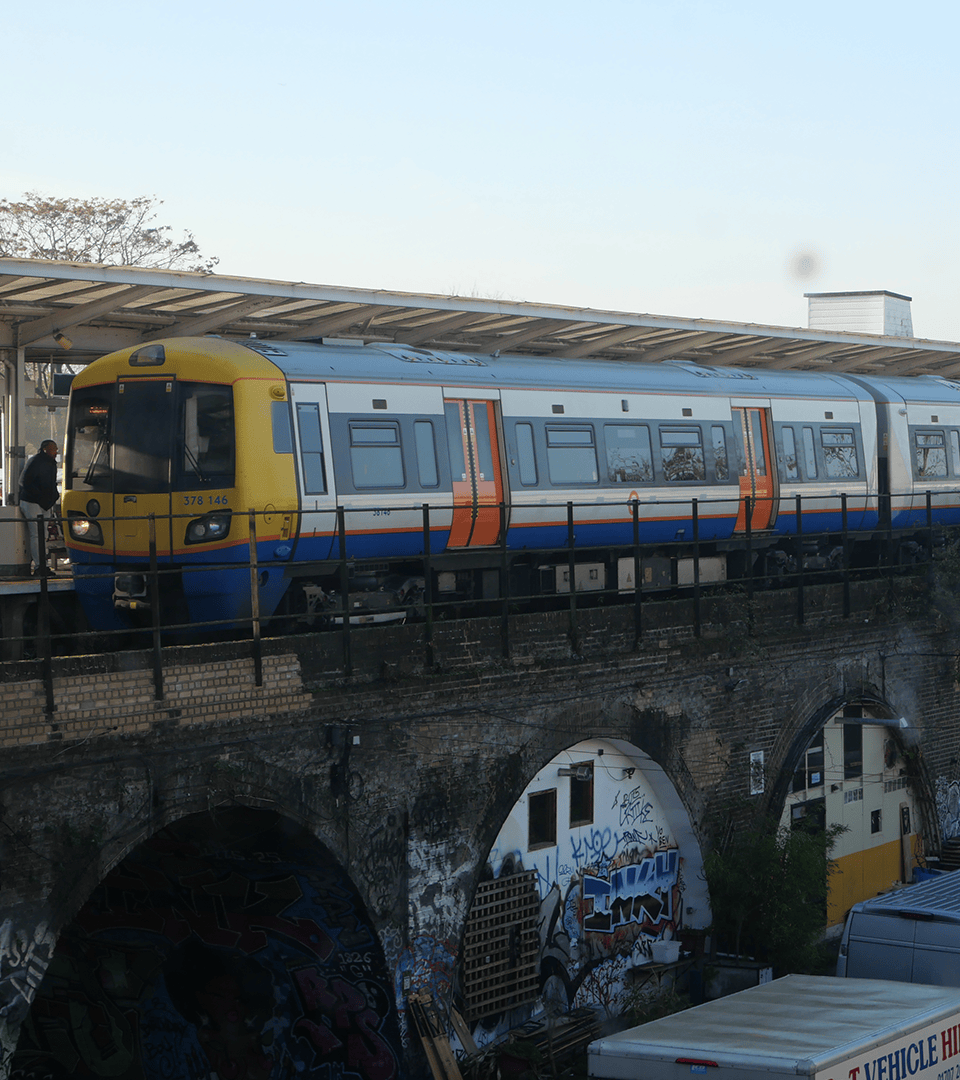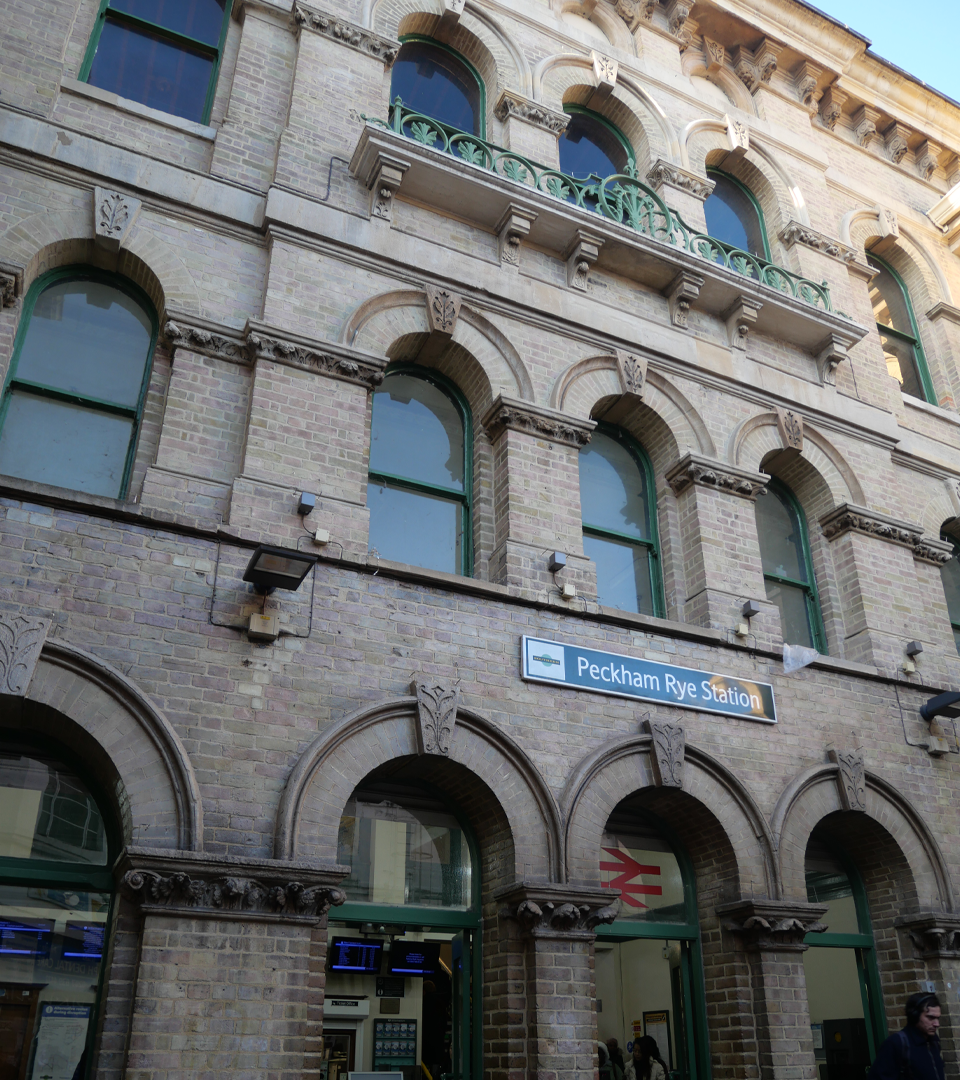
What immediately caught my attention at Peckham Rye Station was its physical form and the beauty in the architecture which is now hidden away by newer buildings. When I was designing my typeface I wanted to reflect the structure of the site to bring attention to the station instead of hiding it away. To do this I focused on one feature that I particularly liked which were the windows. The letters are rounded to reflect the arched shape of the windows and I included the keystone and the ridges as serifs which are seen in the stonework around the windows.